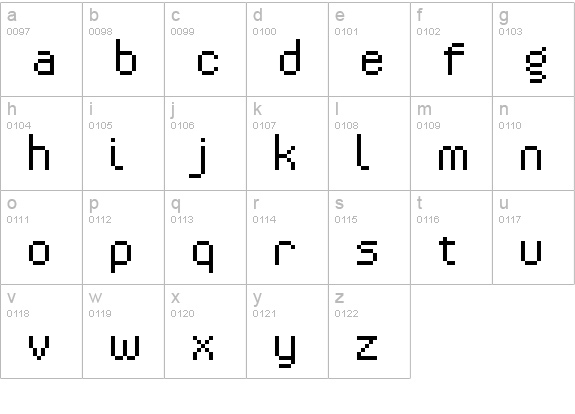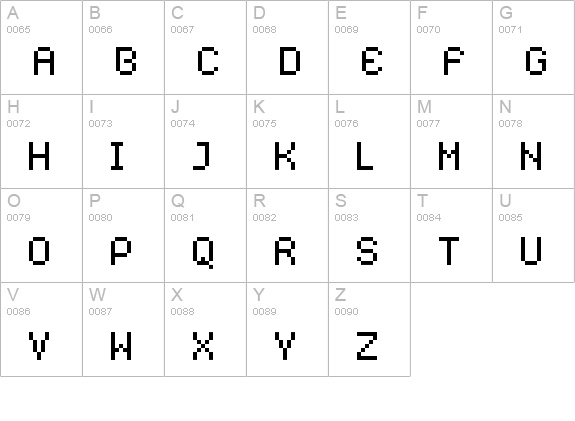
Introducing CALIPER-333TC font, a sleek and modern typeface that exudes sophistication and elegance. This versatile font is perfect for a wide range of design projects, from branding to editorial layouts. With its clean lines and contemporary aesthetic, CALIPER-333TC font is sure to make a statement. What makes this font even more appealing is that it is completely free to download at FontsMarket.com. Yes, you read that right - this high-quality font can be yours at no cost! Whether you're a seasoned designer looking to add a new font to your collection or a student just starting out, CALIPER-333TC font is a must-have for anyone who wants to elevate their designs. Don't miss out on this fantastic opportunity to enhance your projects with the CALIPER-333TC font. Download it for free today at FontsMarket.com and let your creativity shine!